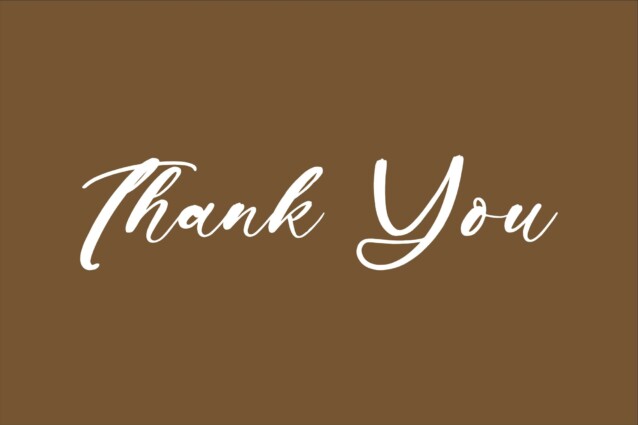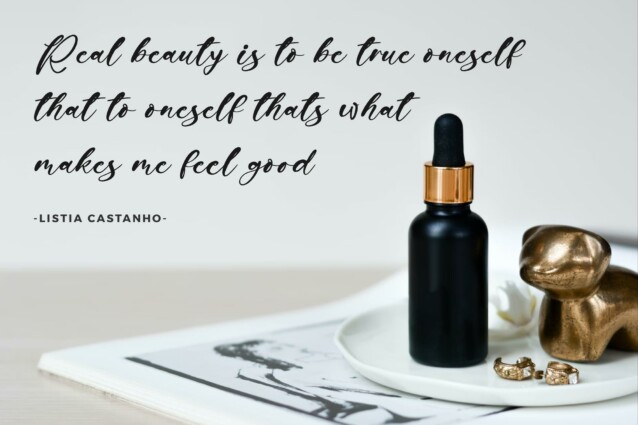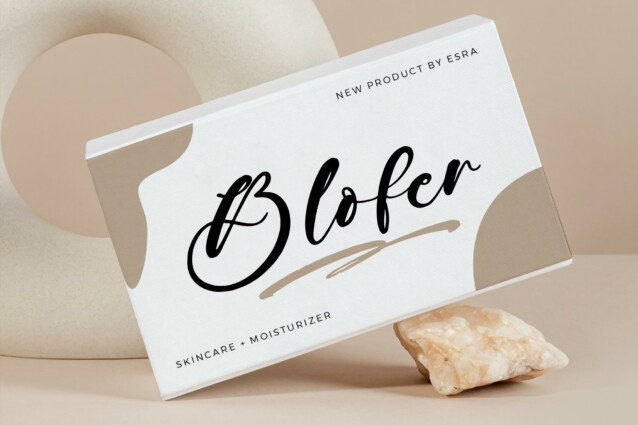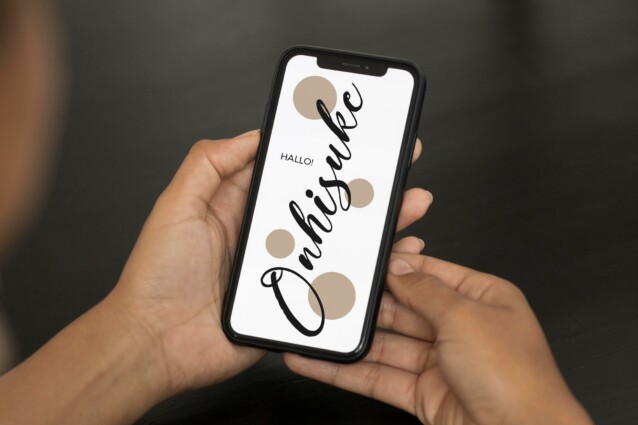
Kollinuky Skelicia Font is a Beauty Handbrush Script Font, suitable for any projects such as: logos, branding projects, homeware designs, product packaging, mugs, quotes, posters, shopping bags, t-shirts, book covers, name card, invitation cards, greeting cards, label, photography, watermark, special events, and all your other lovely projects that need a beautiful script taste.